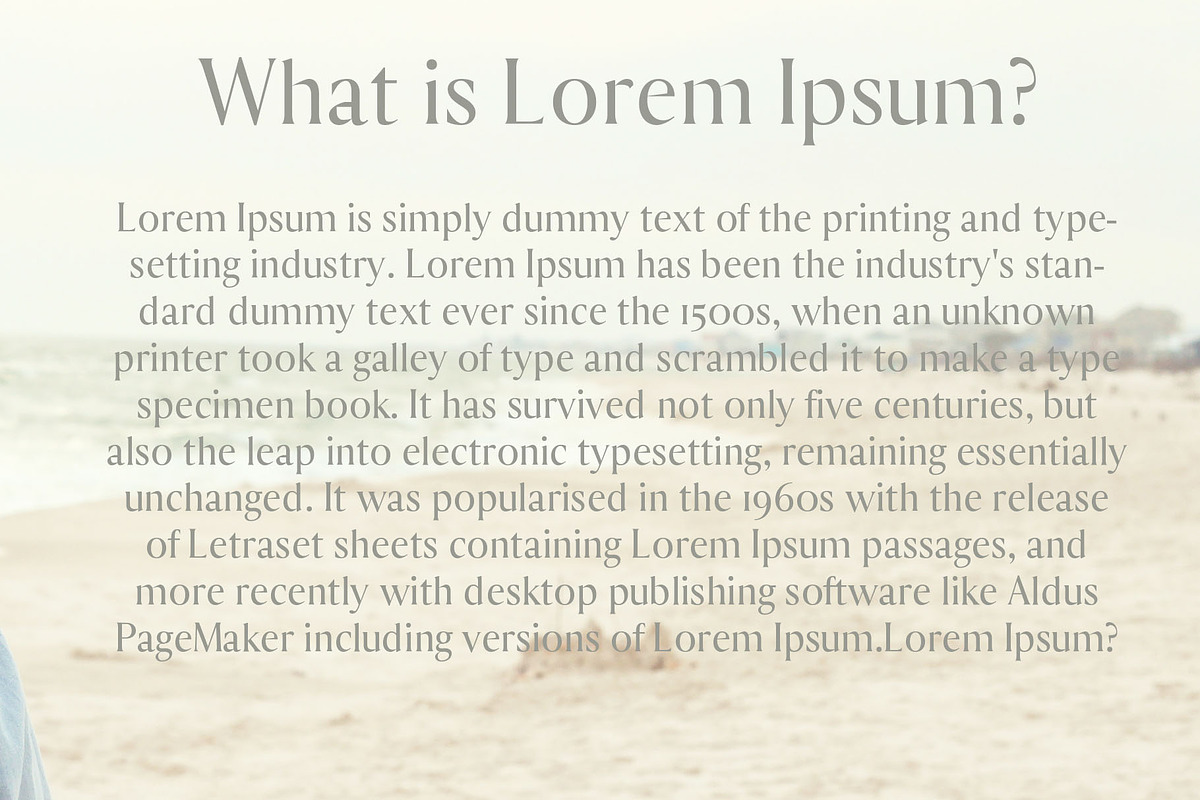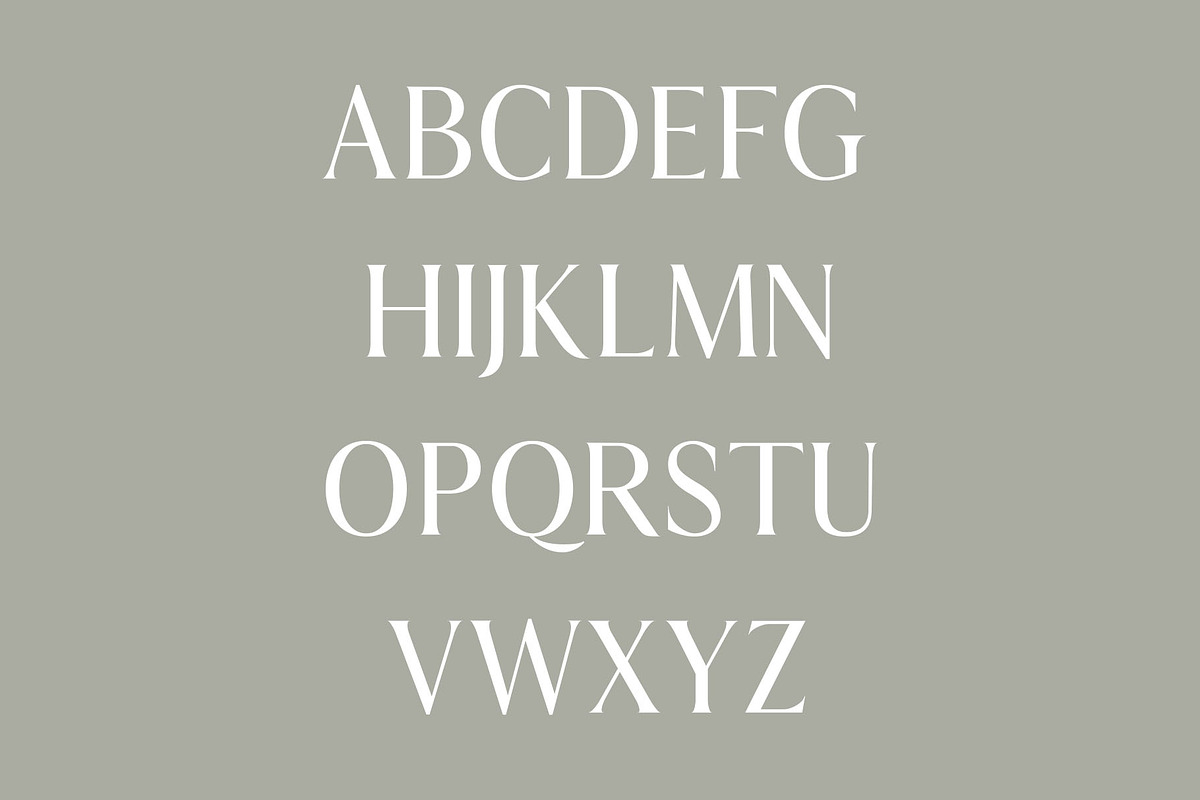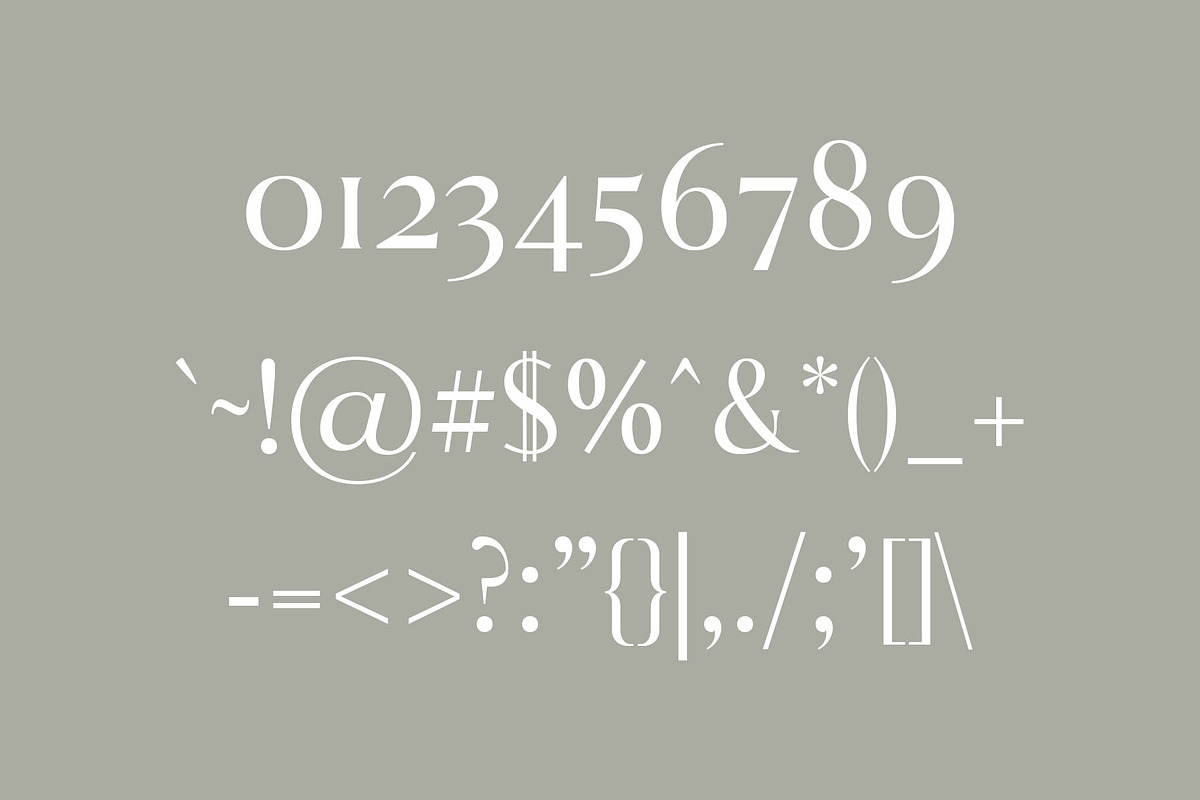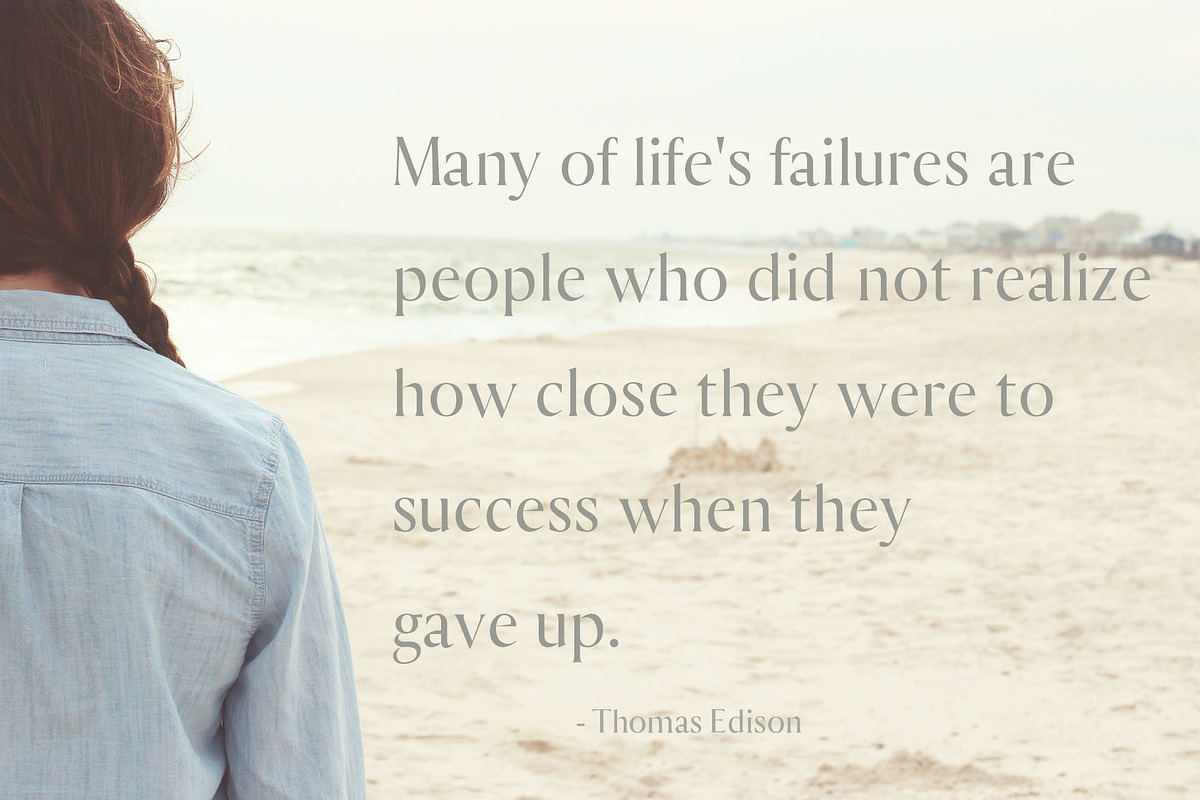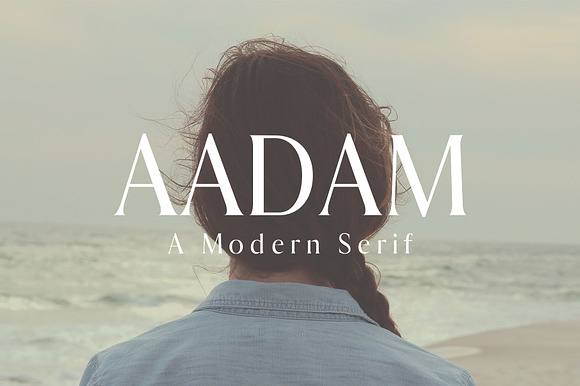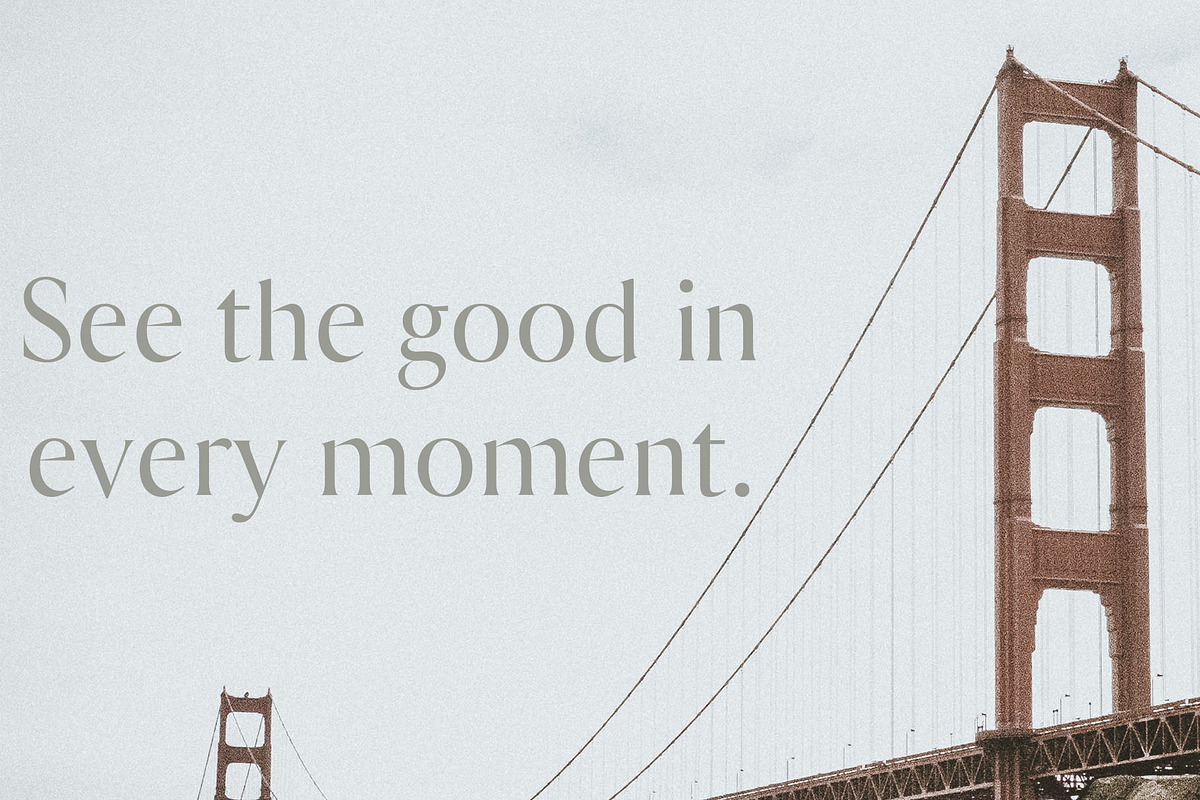
Aadam A Modern Serif Font Family
Aadam is a modern and minimal classy serif typeface which will add charm into your designs. It comes with 3 weights: Regular, Thin, Light and Bold versions, which contains uppercase and lowercase alphabet, numbers, basic punctuation with multilingual support. This font will pair beautifully with the script, signature or handwriting style.
Aadam can be used for headlines, posters, branding, packaging, presentations, logo, quotes, titles, magazines headings, web layouts, advertising, invitations, packaging design, books, and nearly any creative design.